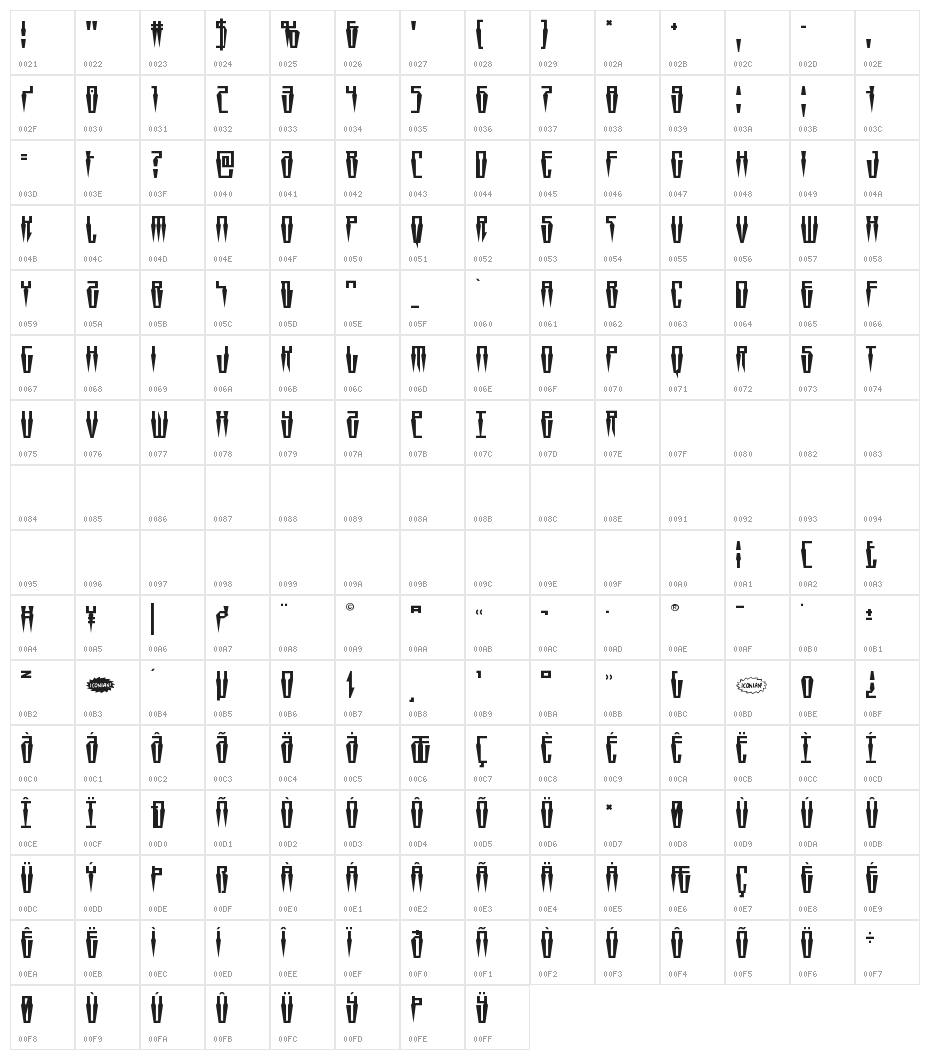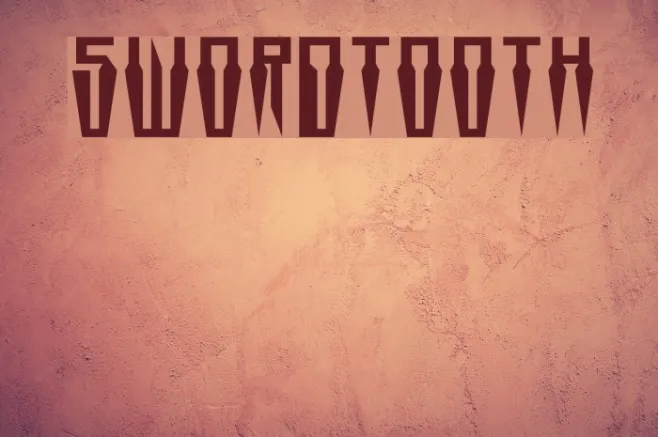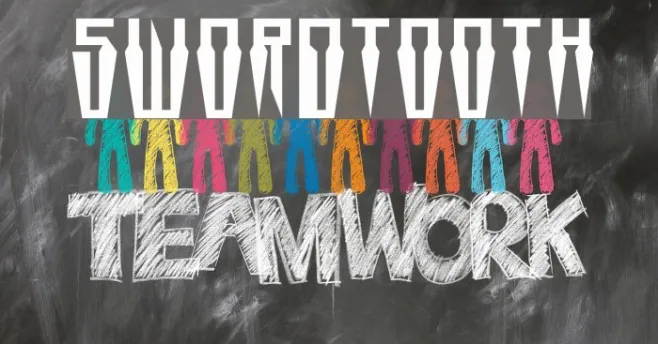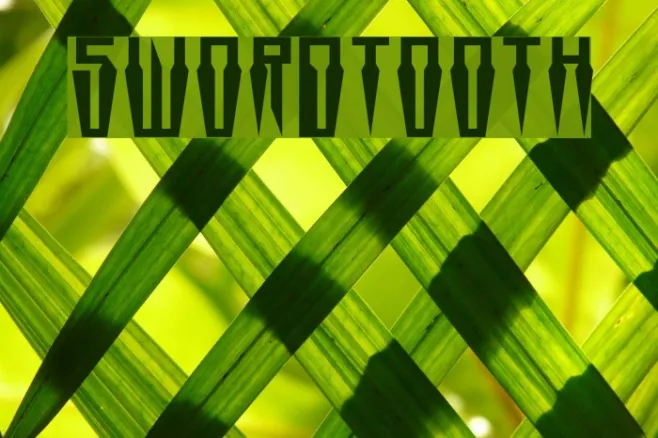
Swordtooth Font
Swordtooth Description
This font features a bold and aggressive design with sharp, angular edges that resemble the teeth of a sword. Each character is crafted with a distinct geometric style, emphasizing verticality and pointed ends. The uppercase and lowercase letters maintain a consistent theme, with the lowercase being slightly more compact. Numbers and special characters follow the same design principles, ensuring uniformity across all glyphs. The font's unique style makes it stand out, suitable for projects that require a strong visual impact.
| Overall Style | Modern, Aggressive |
| Proposed Projects | Ideal for video game titles, movie posters, branding for edgy products, and any design needing a fierce, standout typeface. |